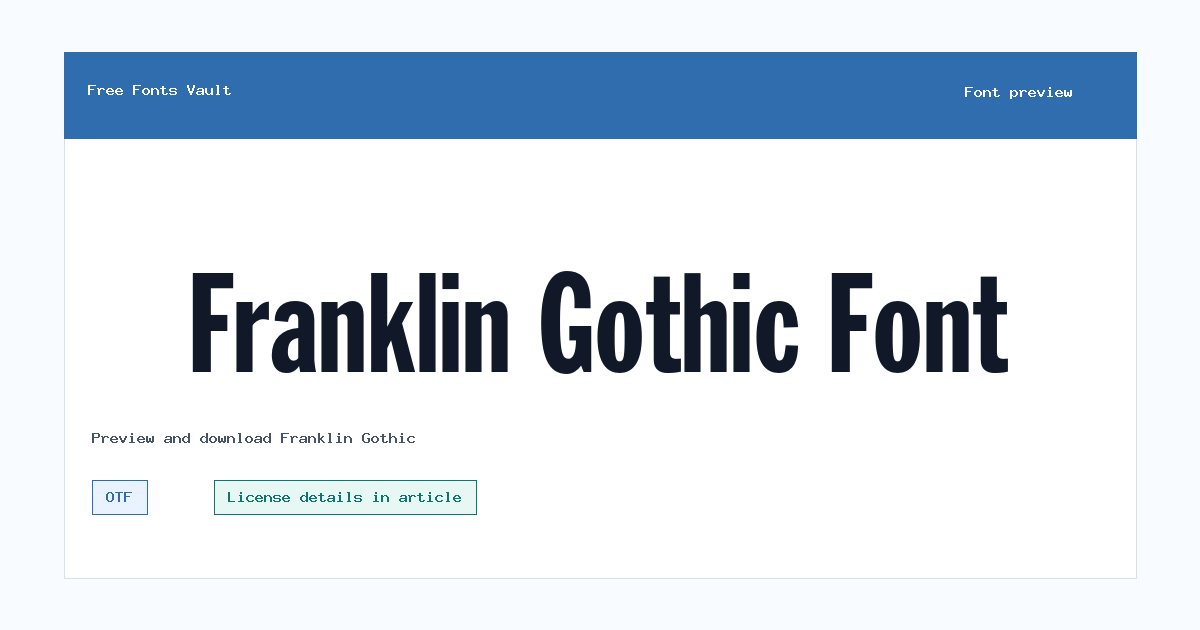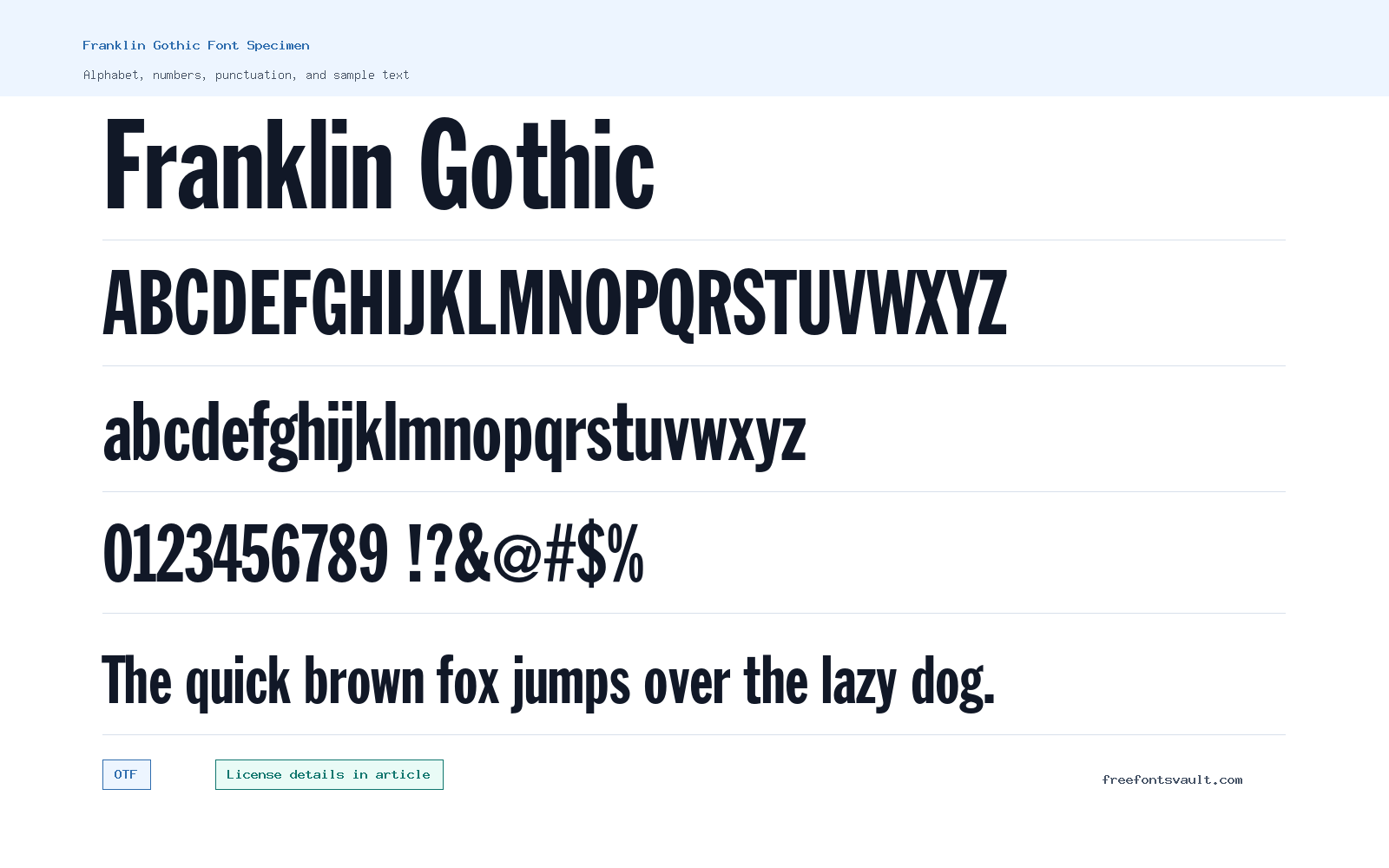
Franklin Gothic
Franklin Gothic is a strong sans serif name with a long typographic history, and this download offers an Extra Condensed OTF style for tight, attention-focused text.
Franklin Gothic is associated with Morris Fuller Benton and American Type Founders, with the original design released in the early 1900s. The wider Franklin Gothic family is known as a direct, solid sans serif rather than a soft geometric face. In this download, the file is Franklin Gothic Extra Condensed, so the look is narrower than a standard text face. That makes it useful when you need tall, compact lettering that can hold a headline, label, poster line, or short navigation word without taking too much horizontal space.
- Extra-condensed proportions for narrow headlines, labels, posters, and compact display text.
- Short headlines, poster text, badges, covers, and strong title treatments where space is limited.
- Previewing a classic grotesque-style sans serif look before deciding whether to license a fuller Franklin Gothic family.
For best results, keep the text short and give the letters enough tracking and line spacing. Extra-condensed fonts often need a little extra breathing room, especially in all caps. Test numbers, currency symbols, and punctuation if you plan to use the font in prices, dates, menus, or UI labels. Pair it with a calmer serif or a more open sans serif for body text so the layout does not feel too compressed.
Is Franklin Gothic good for body text?
This Extra Condensed file is better for short display text than long reading. Use it for headlines, labels, and compact titles, then choose a more open font for paragraphs.